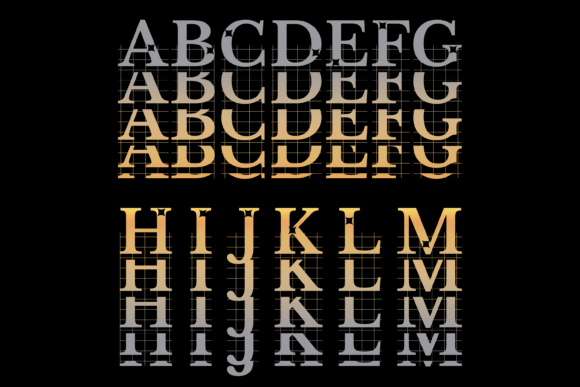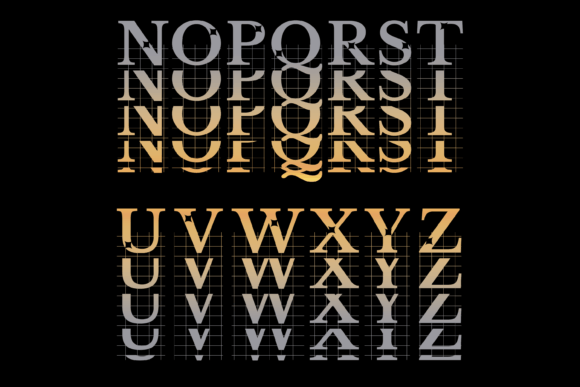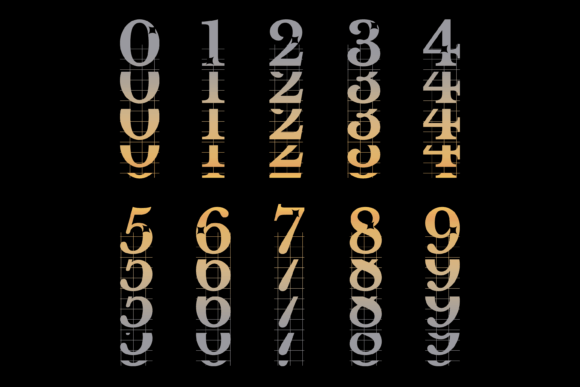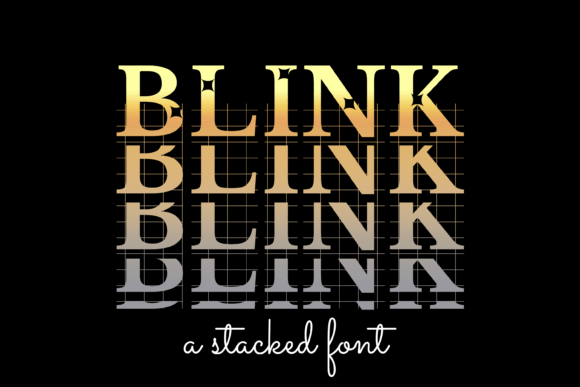
The Blink Font: A Designer’s Dream Come True
I still remember the day I stumbled upon the Blink font while working on a project for a client who needed a unique and playful touch. I had been searching for hours, trying out font after font, but nothing seemed quite right. That was until I saw Blink – it was love at first sight! ✨ The elegant curves, the whimsical feel, and the versatility of this font immediately won me over. In this article, I’ll share my experience with Blink, its features, and how to make the most of it in your designs.
An Honest Review of Blink Font
What I Love About Blink Font
- 💫 Elegant and sophisticated, yet playful and fun
- ✅ Highly versatile, suitable for a wide range of design projects
- ✨ Beautifully crafted, with attention to detail and a clear focus on aesthetics
- 🔍 OpenType features, including glyphs and stylistic alternates, offer endless creative possibilities
While Blink is an amazing font, there are a few things to keep in mind: 🤔
- ⚠️ Some characters may not work well in very small sizes, so it’s best to use it at larger sizes (from 18pt and up)
- ⚠️ Limited language support, so it’s best to use it for English or similar languages
The Story Behind Blink Font
Blink font was designed by a team of typographers who wanted to create a font that was both elegant and playful. Inspired by the beauty of handwriting and the versatility of digital design, they crafted Blink to be a font that would bring a touch of whimsy to any project. With its unique blend of curves and lines, Blink font is sure to capture the attention of your audience.
Q: What is the best use for Blink font?
A: Blink font is highly versatile and can be used for a wide range of design projects, from custom designs and DIY crafts to titles and headings in digital and print materials.
Q: Is Blink font suitable for body text?
A: While Blink font is beautiful, it’s best used for titles, headings, and accents. For body text, you may want to choose a font that’s more readable and easier to read.